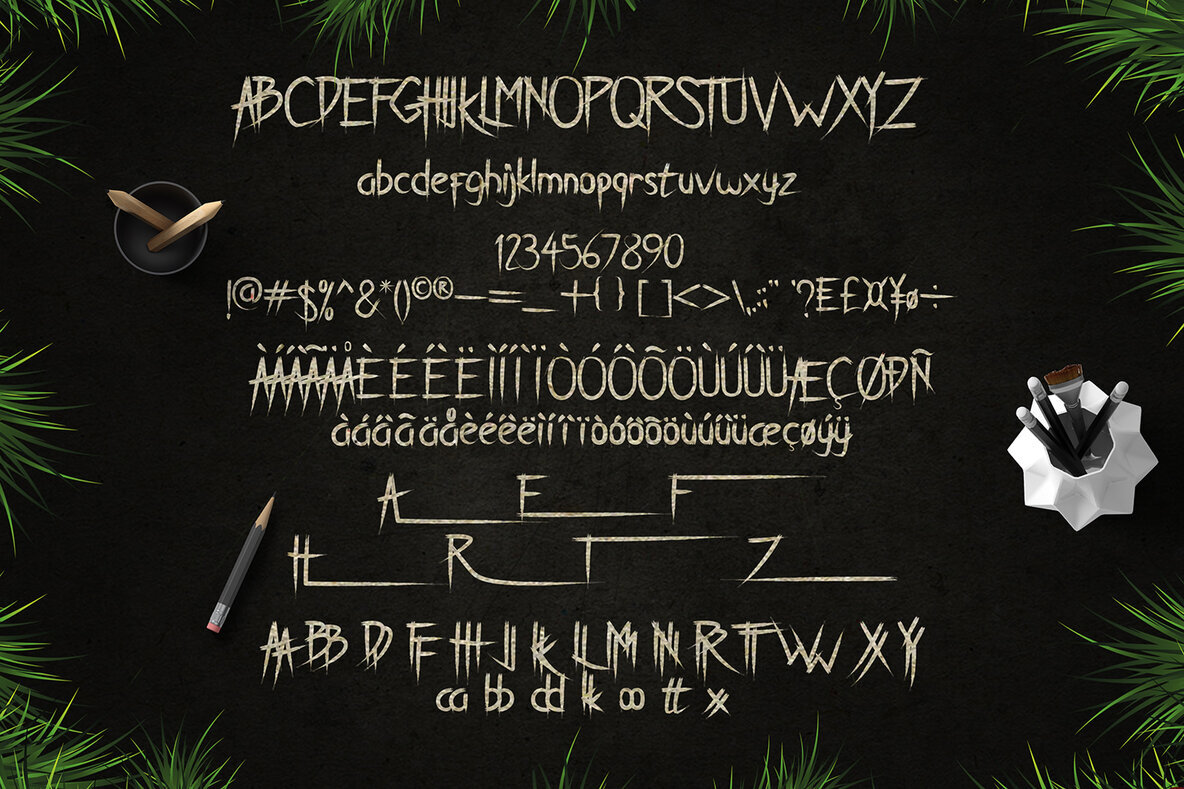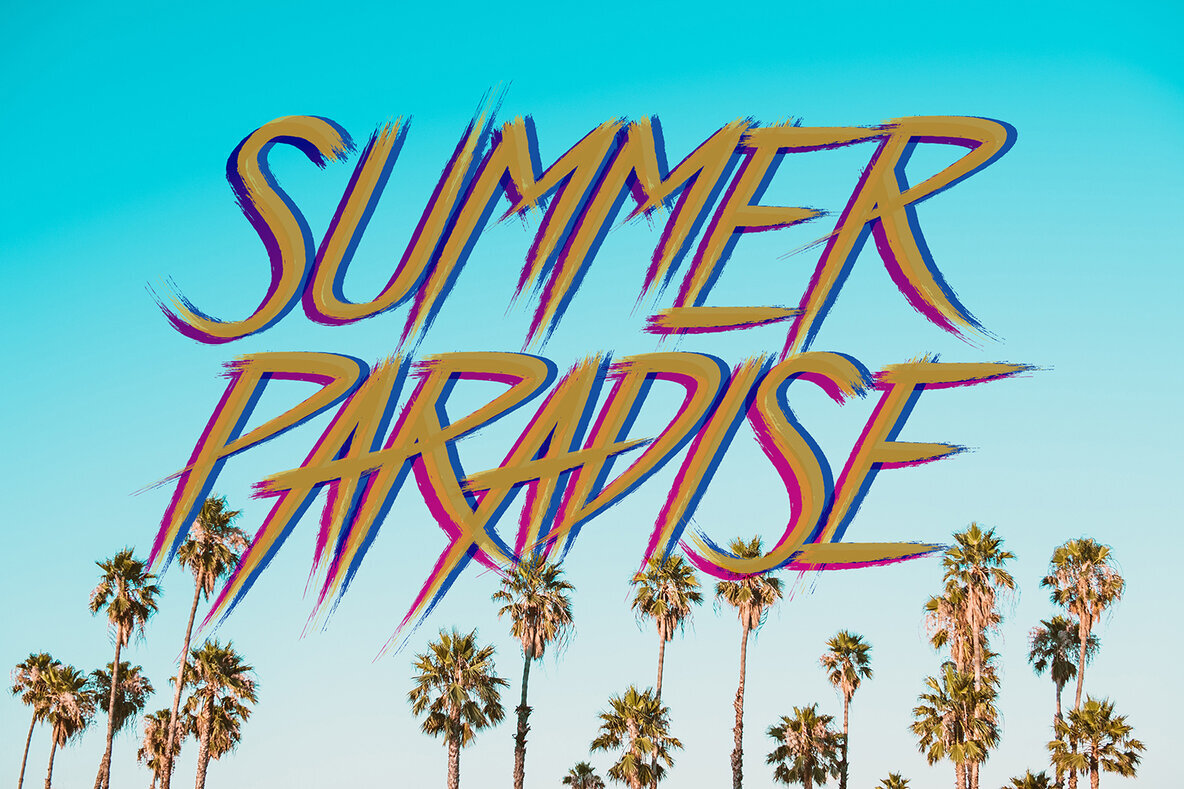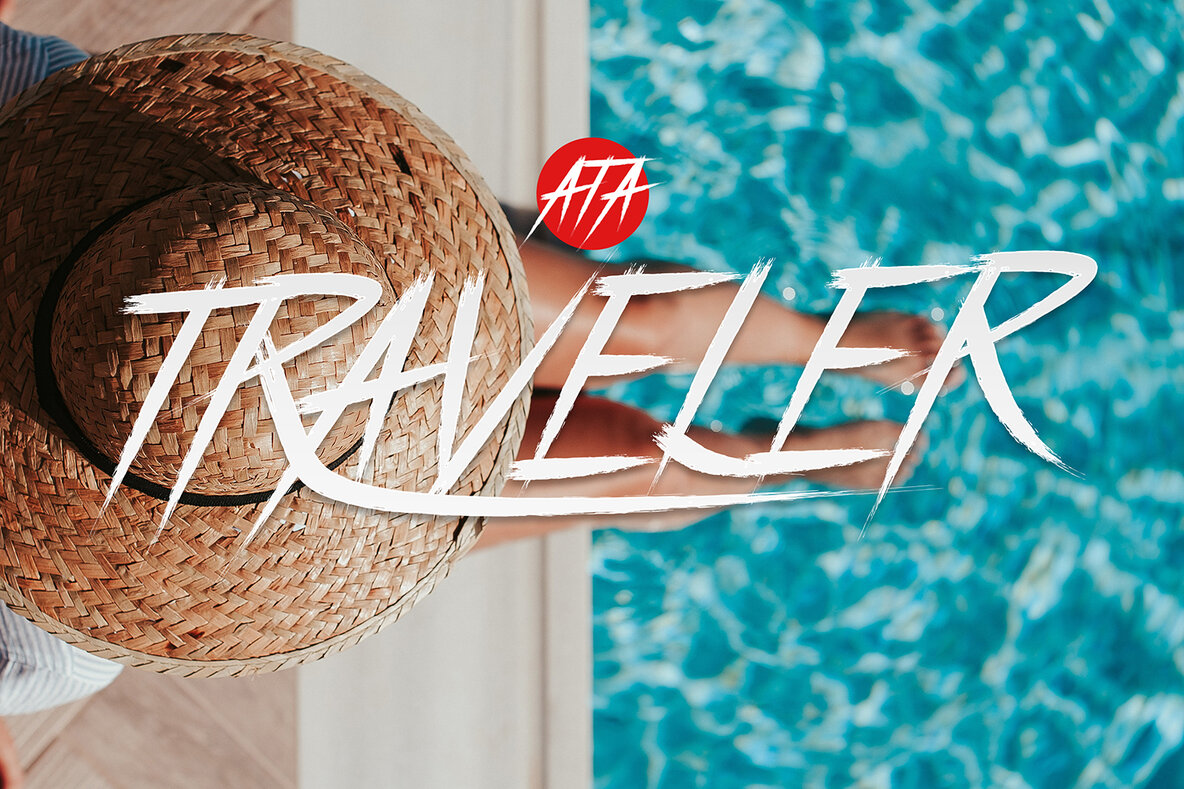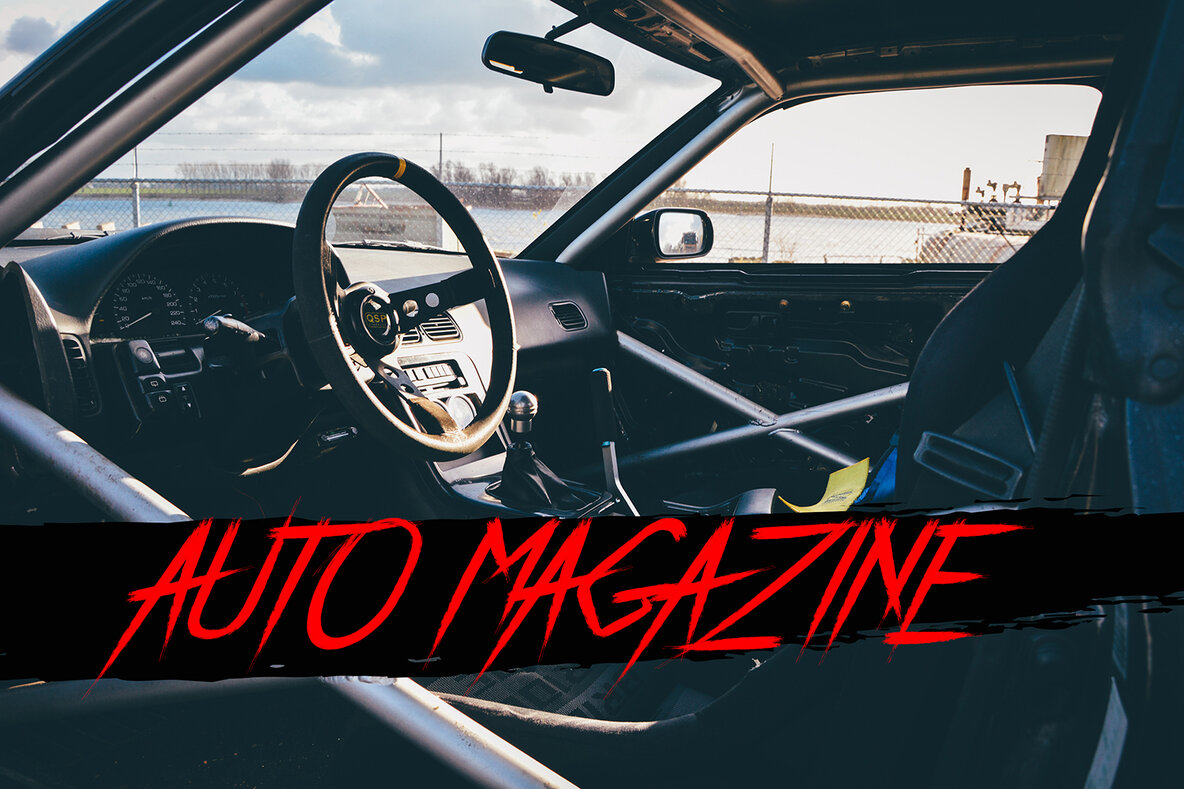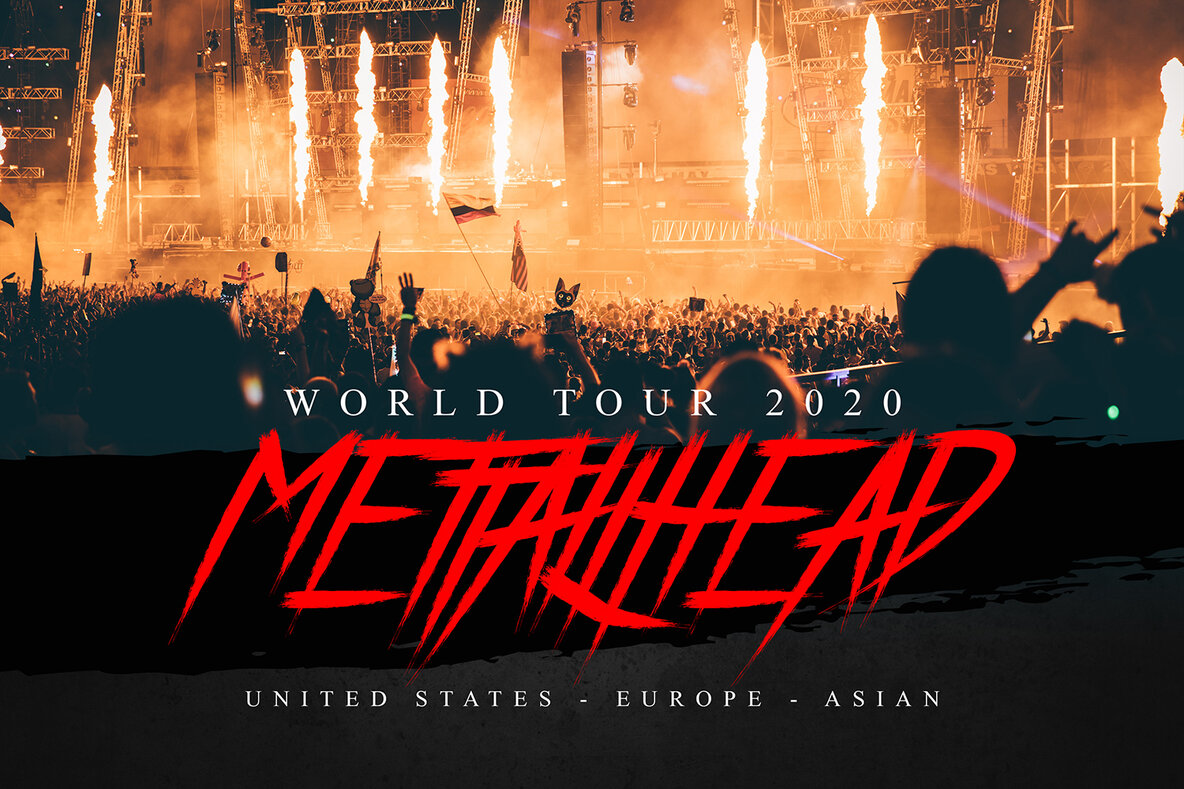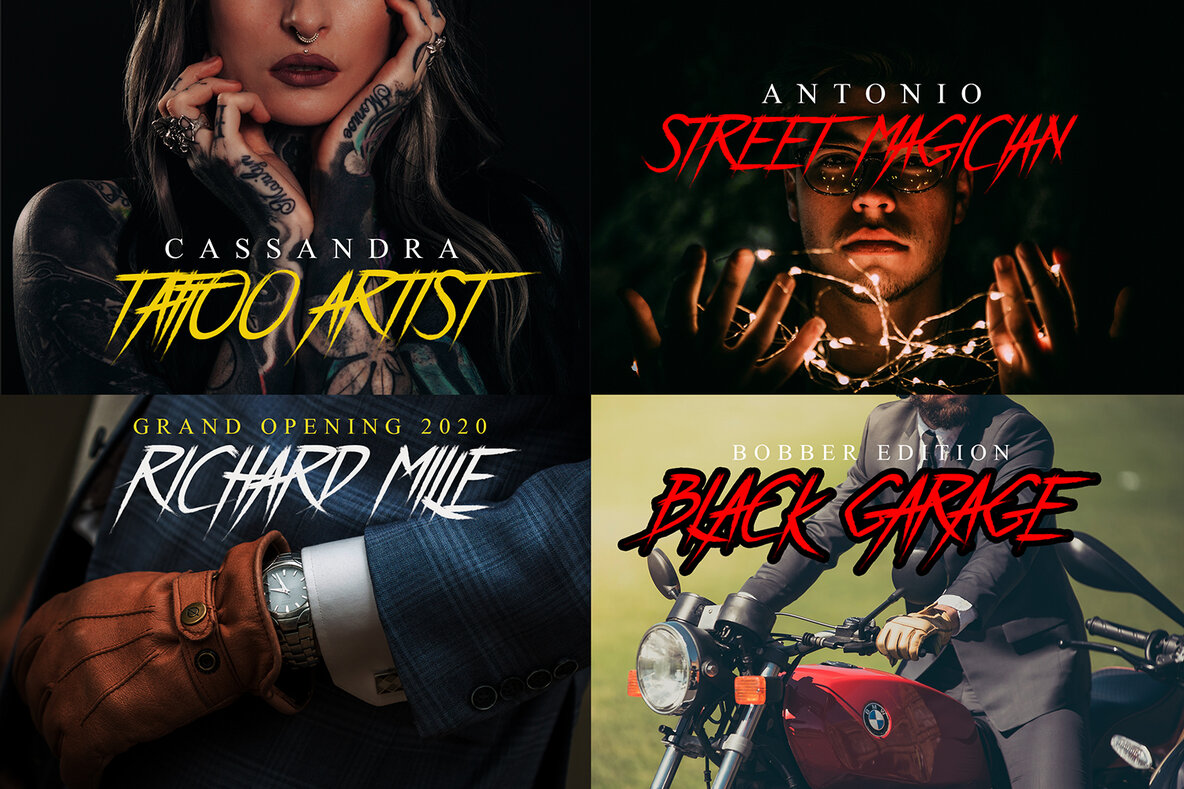
Breathe Karma: Classic Meets Contemporary in Brush Script
Sculpted with a nod to the nostalgia of classic and old style, Breathe Karma is a brush typeface that encapsulates both heritage and innovation. It offers a versatile solution for a variety of projects, from branding and product packaging to invitations and posters. Its fluid strokes infuse a sense of individuality, making each application distinctly expressive.
• Timeless Style – Reflects the elegance of classic designs while maintaining modern relevance.
• Versatile Applications – Perfect for t-shirts, labels, quotes, and more.
• Expressive Brush Strokes – Adds a personalized touch to any project.